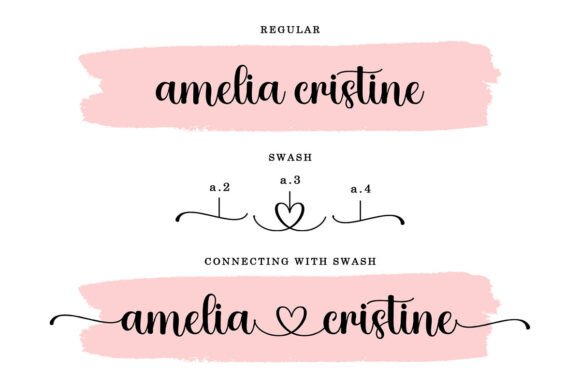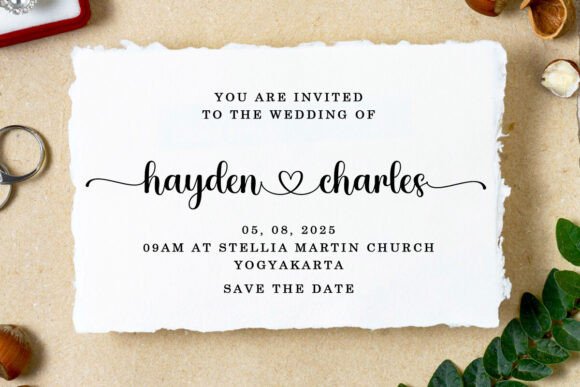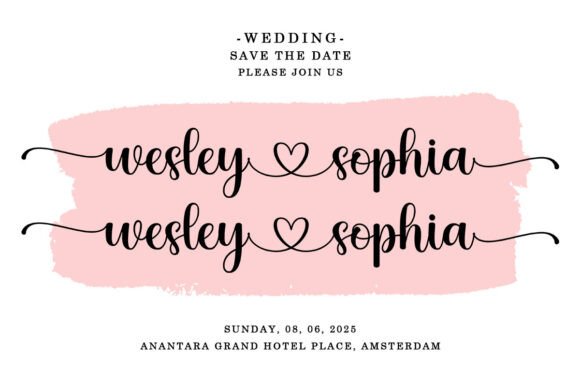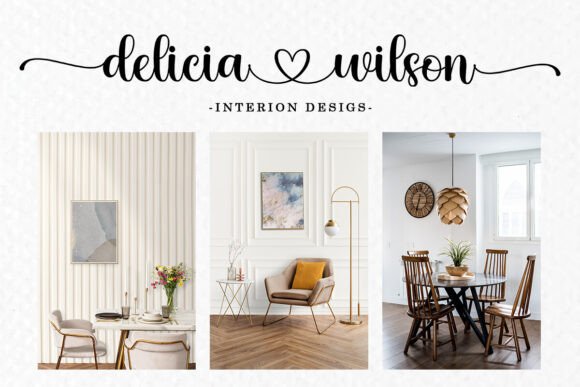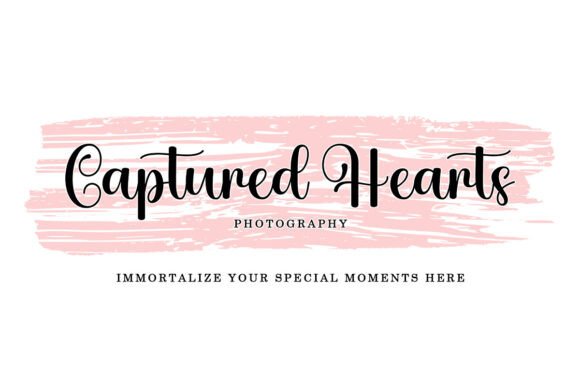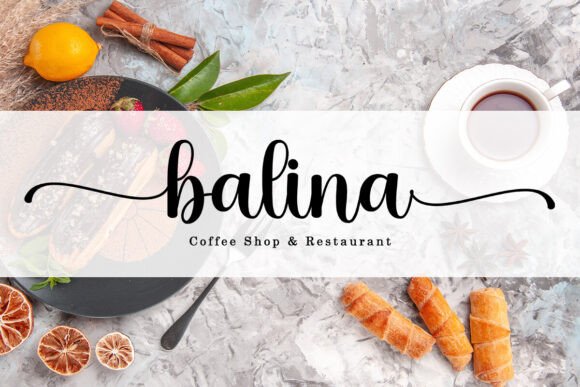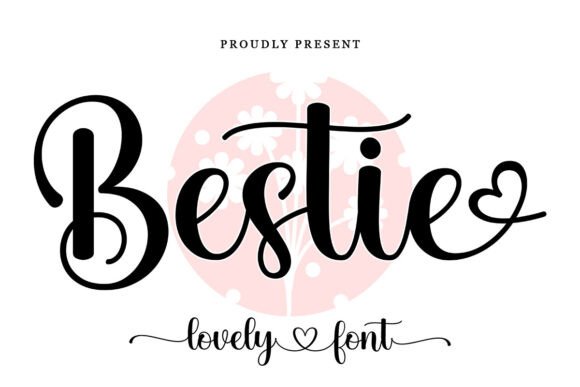
The Ultimate Guide to Bestie Font: Elevate Your Designs with Elegance
I’ll never forget the time I was working on a project for a high-end client, and I was struggling to find the perfect font to match their brand’s sophisticated vibe. I had tried countless fonts, but none seemed to capture the essence of elegance and refinement I was looking for. That’s when I stumbled upon Bestie Font, and it completely transformed my design. In this article, I’ll share my love for Bestie Font, its features, and how to make the most of it in your designs.
An Honest Review of Bestie Font
Bestie Font is a stunning handwritten font that exudes elegance and sophistication. Here’s what I love about it:
• ✨ Elegant and flowing script with varied baselines, giving it a natural, handwritten feel
• ✅ Smooth lines and beautiful glyphs that make it perfect for high-end designs
• ✨ Stunning alternates and OpenType features that allow for endless creative possibilities
• ✅ A classy calligraphic influence that feels contemporary and fresh
While Bestie Font is an amazing font, it’s not perfect. Here are a few quirks to keep in mind:
• ⚠️ Some of the glyphs and alternates can be a bit finicky to access, especially for beginners
• 🤔 The font may not be suitable for very small text sizes or body text, as it can be quite ornate
The Story Behind Bestie Font
Bestie Font was designed with the intention of creating a elegant and refined script font that would capture the essence of modern calligraphy. The designer wanted to create a font that would feel both classic and contemporary, making it perfect for a wide range of design projects.
What makes Bestie Font unique? Bestie Font is unique due to its elegant and flowing script, varied baselines, and stunning OpenType features.
Is Bestie Font suitable for body text? While Bestie Font is an amazing font, it’s not suitable for body text due to its ornate and elegant nature.